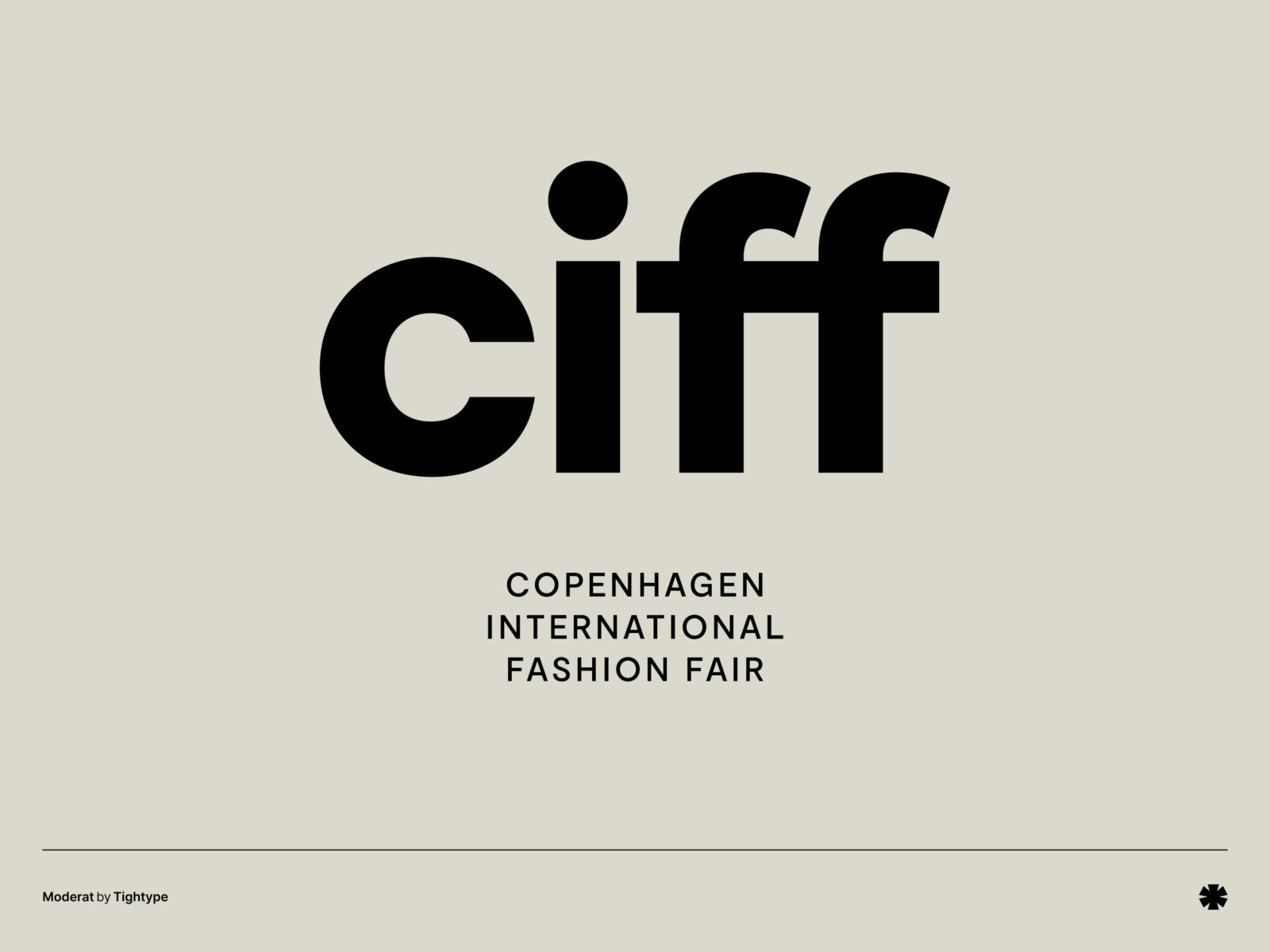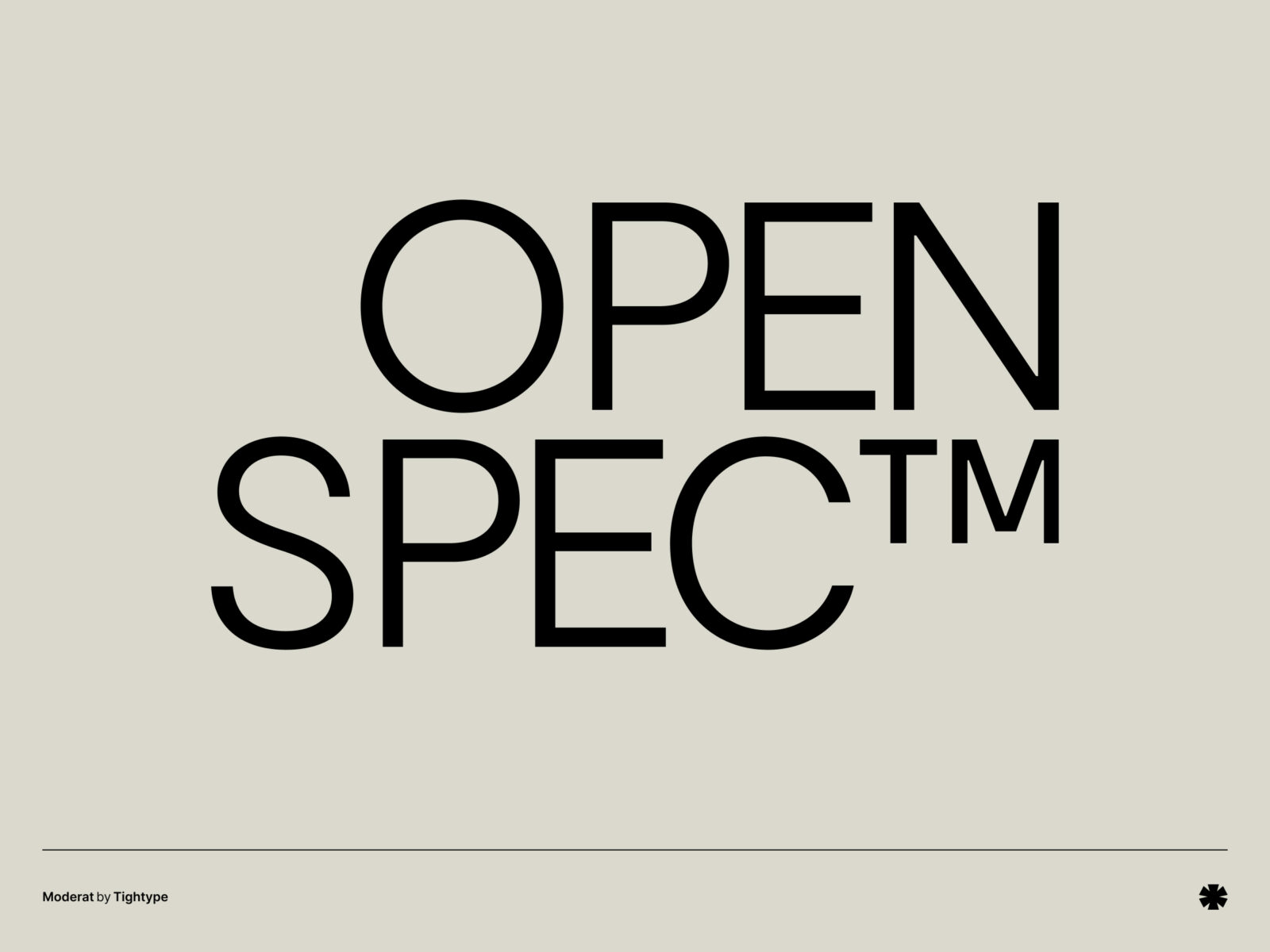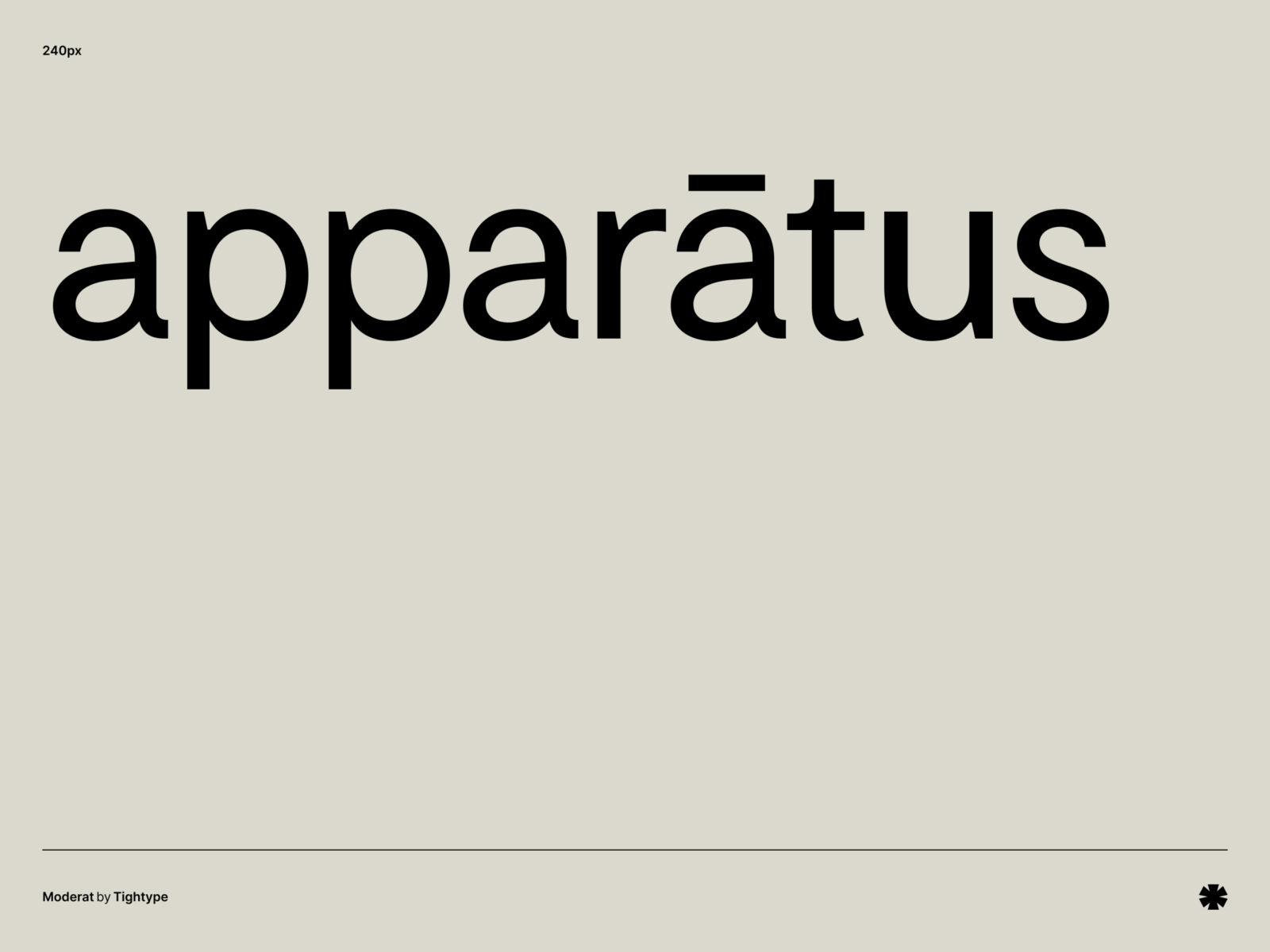
Low stroke contrast, and a feeling of calm, warmth, and rationality. Moderat is a utilitarian typeface with character and great legibility. Moderat was designed in 2015.